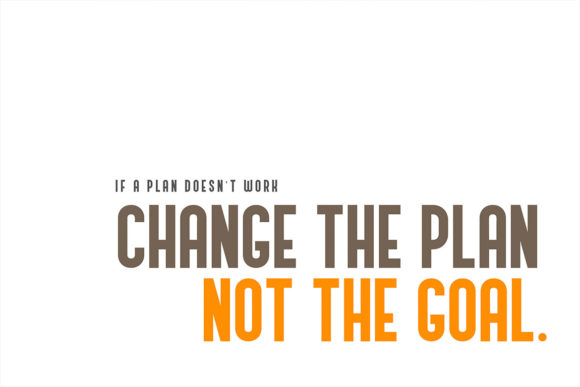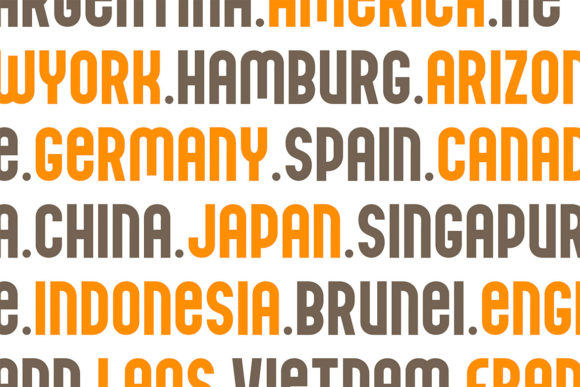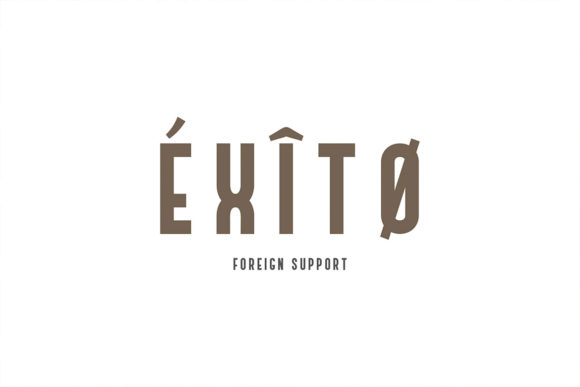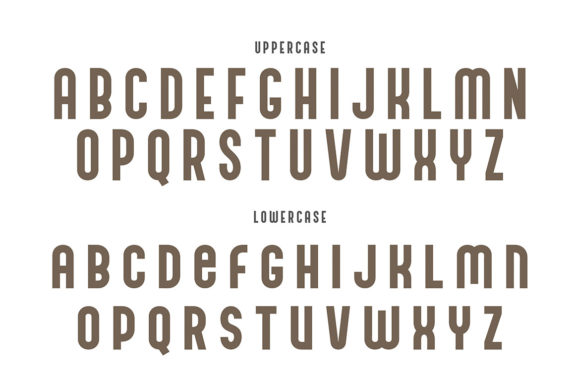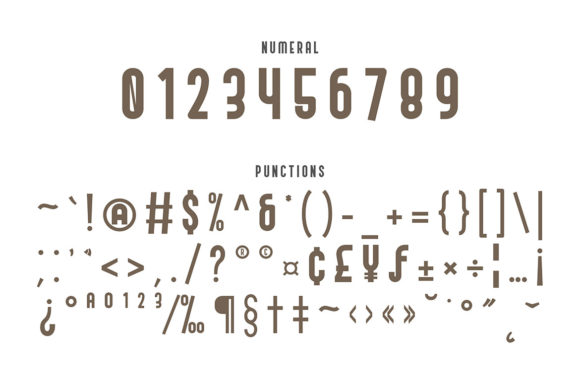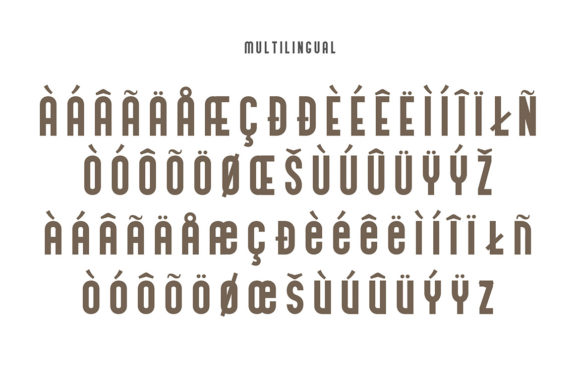
The Perfect Canvas for Creativity: Andreas Font
Have you ever been stuck staring at a blank page, waiting for inspiration to strike? You’re not alone. For designers, the blank slate can be both exhilarating and intimidating. But what if you had the perfect tool to bring your vision to life? Enter Andreas Font, a condensed sans serif font that’s as elegant as it is modern.
Andreas Font is designed for the fashion-forward and the style-conscious, making it perfect for fashion, apparel projects, signature logos, branding, magazines, social media, and advertisements. Its sleek and sophisticated design makes it a valuable asset for designers looking to create a lasting impression. Whether you’re a seasoned pro or just starting out, Andreas Font is sure to elevate your designs and leave a lasting mark.
Andreas Font Key Features
- Font Family: Andreas Font is a sans-serif font family.
- Unique Characteristic: Andreas Font is known for its clean and modern design, making it suitable for a wide range of applications, including corporate branding, advertising, and digital media.
Andreas Font Review
As a designer, I was excited to dive into the Andreas Font and see what it has to offer. Here’s my honest review:
- Unique Character Set: The Andreas Font has a distinct character set that sets it apart from other sans-serif fonts. It’s perfect for projects that require a touch of personality.
- Great for Body Text: Andreas Font is highly legible, making it an excellent choice for body text in various contexts.
- Strong Headline Options: The font’s bold and condensed weights make it suitable for headlines and titles.
- Limited Language Support: Andreas Font might not be the best choice for projects that require extensive language support, as it’s not as comprehensive as other fonts.
- Not Ideal for Small Text: While Andreas Font is legible, it’s not the best choice for small text due to its condensed width.
- No Italic Option: The font’s italic option is somewhat lacking, which might be a concern for designers who prefer a more traditional italic look.
Overall, the Andreas Font is a solid addition to any designer’s toolkit. While it has some limitations, its unique character set and excellent legibility make it a great choice for various design projects.
Tip: Use Andreas Font for headings or titles to add a touch of elegance and sophistication to your design.
Tip: Use Andreas Font for logotypes or headings to create a cohesive and professional look.
Tip: Use Andreas Font for titles or headings to add a touch of sophistication to your presentation or document.
Andreas Font is ideal for:
- Logotypes and branding
- Editorials and magazines
Remember to use Andreas Font in moderation to avoid overusing a single font.